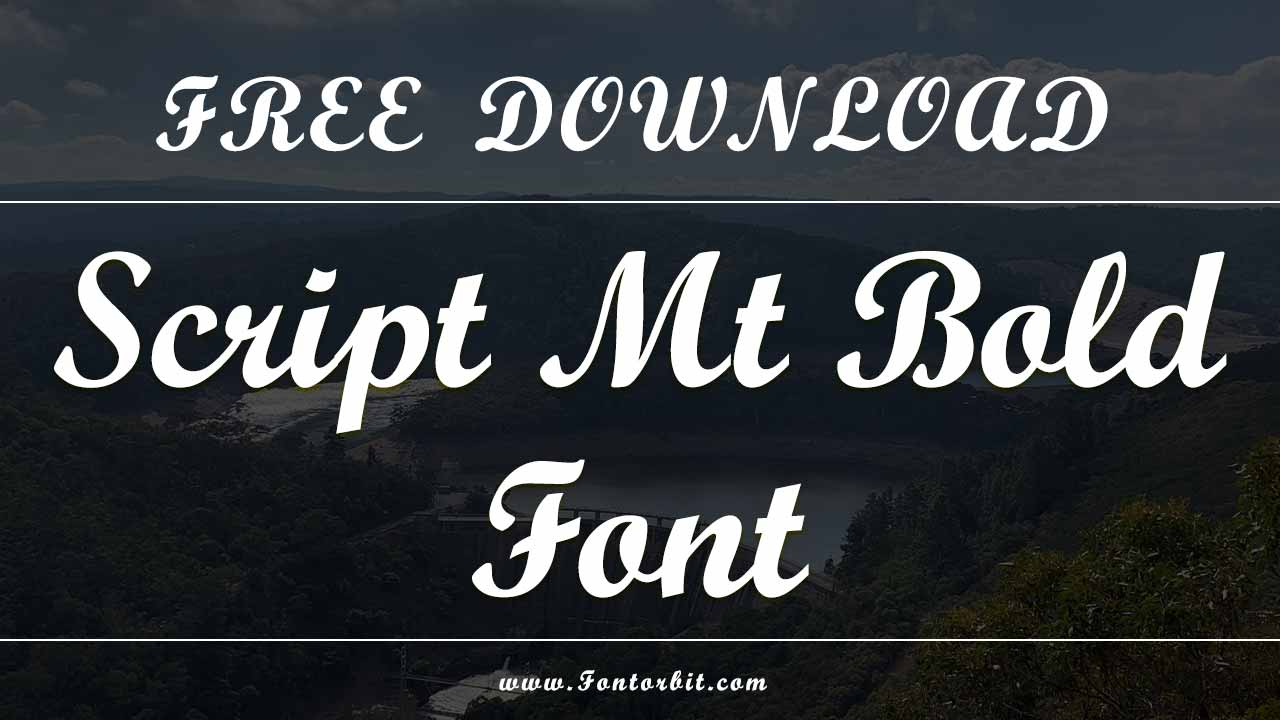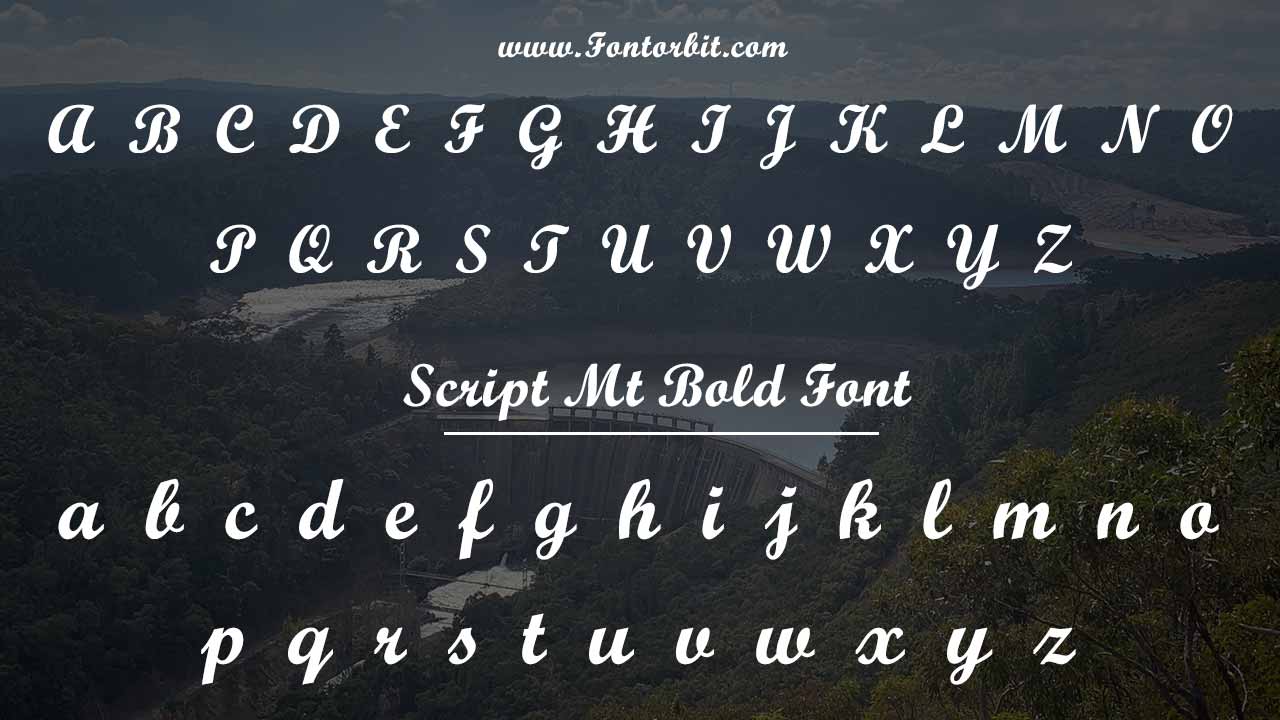
Script MT Bold is a distinctive and bold typeface that is renowned for its brush-like, elegant appearance. Designed by F.H. Steltzer and published by Monotype Typography Ltd, this font stands out with its strong presence and sophisticated charm. It is widely used in various design fields, including logos, printed materials, packaging, and advertising. It adds an undeniable sense of impact and sophistication.
The font’s commanding yet graceful style makes it perfect for projects that need to exude both power and elegance. Let’s explore how to use Script MT Bold effectively. We will cover its best uses, how to pair it with other fonts, and essential tips for formatting it for both print and digital use.
Script Mt Bold Font Family
Before diving into how to use this font, it’s essential to understand the variations available within the Script MT Bold family. The font family includes:
- Script MT Bold (Regular) – This is the base version of the font, with bold, brush-like strokes that offer a commanding and elegant look.
- Script MT Bold Pro – A more advanced version of the regular Script MT Bold, offering additional typographic features, such as alternate characters and kerning adjustments, that can be used to fine-tune your design.
Both versions carry the same essence of boldness and sophistication, but the Pro version allows for more flexibility and precision, making it ideal for professional and commercial applications.
Best Uses For Script MT Bold
Script MT Bold’s dynamic nature makes it incredibly versatile. Below, we highlight some of the best uses for this striking typeface. From high-end branding to elegant invitations, this font works beautifully across various design applications.
- Logos and branding – Perfect for high-end brand identity
- Product packaging – Great for luxury products and handcrafted items
- Headlines and advertising – Ideal for impactful messaging
- Invitations and greeting cards – Adds a sophisticated touch
- Website design – Stylish for headers and promotional banners
Choosing The Right Font Color
Choosing the right font color for Script MT Bold is crucial to maintaining legibility while also preserving its elegance. Here are some color practices to help you get the most out of this typeface:
1.Use Light Text On Dark Backgrounds
Script MT Bold’s bold strokes can sometimes make it hard to read if the contrast isn’t strong enough. A great way to ensure readability is by using light-colored text on dark backgrounds. This creates a high contrast that makes the text stand out clearly.
2.Pair With Neutral Tones
Script MT Bold shines when paired with neutral tones like black, white, or gray. These colors allow the font to maintain its elegance without distracting from the message. By using neutral tones, you also highlight the boldness of the font and make it the focal point of the design.
3.Avoid Highly Saturated Colors
While bright, saturated colors can be eye-catching, they may make Script MT Bold hard to read, especially in large blocks of text. It’s best to avoid using overly bright or clashing colors. Stick to rich, deep tones like navy, forest green, or burgundy for a sophisticated and timeless look.
Pairing Script MT Bold With Other Fonts
While Script MT Bold works beautifully on its own, pairing it with other fonts can help create a balanced design. It’s important to choose fonts that complement the boldness and elegance of Script MT Bold without overpowering it. Here are a few pairing suggestions:
1.Sans-Serif Fonts: Montserrat, Open Sans
When paired with sans-serif fonts like Montserrat or Open Sans, Script MT Bold strikes a balance between elegance and modernity. The clean, geometric lines of a sans-serif font provide contrast to the fluid, calligraphic nature of Script MT Bold, ensuring the text remains readable and stylish.
2.Serif Fonts: Times New Roman, Garamond
Serif fonts like Times New Roman or Garamond work well with Script MT Bold for a more traditional and formal feel. The classic, elegant look of serif fonts complements the bold yet refined nature of Script MT Bold, creating a harmonious design that’s perfect for high-end brands and professional documents.
3.Monospace Fonts: Courier New
Pair Script MT Bold with a monospace font like Courier New for a vintage or retro vibe. This pairing can evoke a sense of nostalgia while maintaining the boldness and sophistication of Script MT Bold. It’s perfect for designs with a retro or typewriter-inspired theme.
4.Can I Use Script MT Bold For The Body Text? No, due to its thickness and bold style, it’s best suited for headlines and decorative use.
5.What Fonts Pair Well With Script MT Bold? It pairs well with sans-serif fonts like Montserrat and serif fonts like Times New Roman.
7.How Do I Adjust Font Color For Better Readability? Use high-contrast colors and avoid clashing tones to ensure clarity.